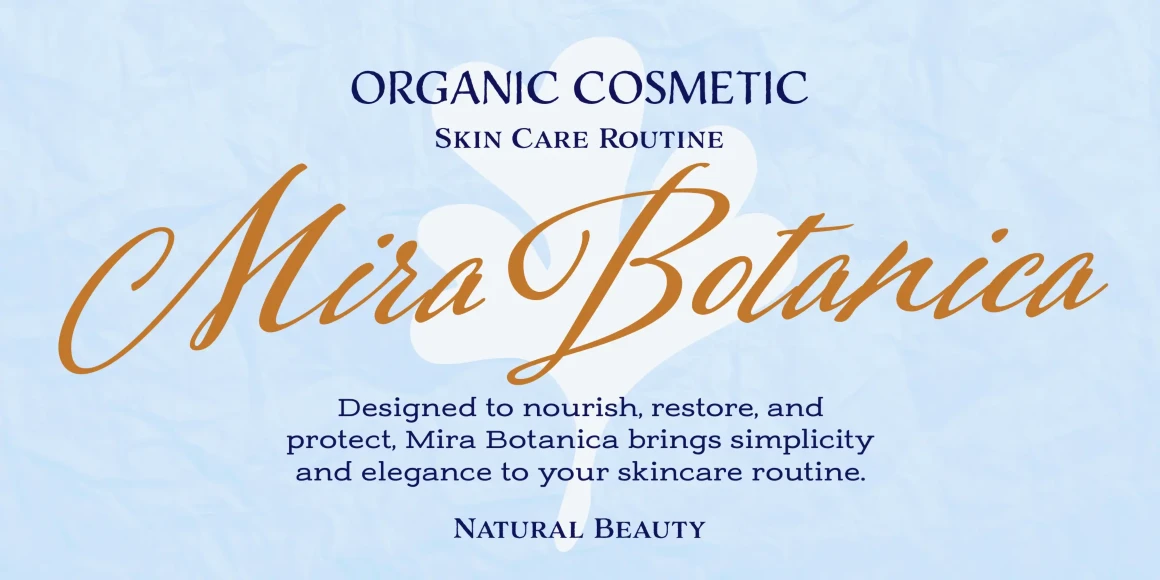
Adorn Slab Serif
Adorn Slab Serif Regular
Adorn Slab Serif Regular Smooth
Adorn Slab Serif Bold
Adorn Slab Serif Bold Smooth
What can be more lovely than a wedding, an invitation or a gift from the heart? One whose presentation uses the warm and welcoming family of typefaces, Adorn. With a modern and sometimes quirky twist on the staid, almost corporate look of formal invitations, this family of hand lettered typefaces arms designers with a breathtakingly large number of fonts that work harmoniously, despite the distinctiveness of each. Adorn offers seven display fonts, four script designs, monograms, ornaments, illustrations, banners, frames, and catchwords.